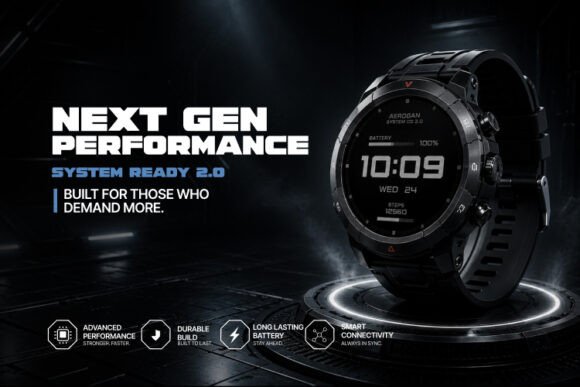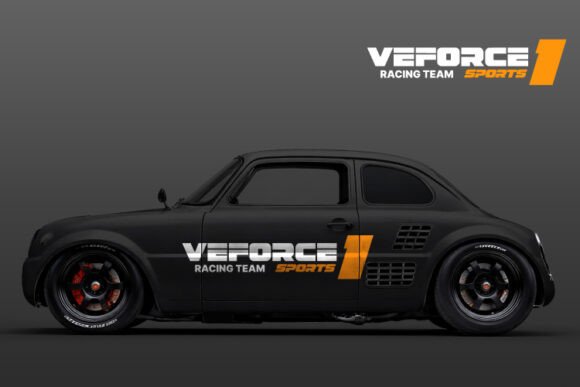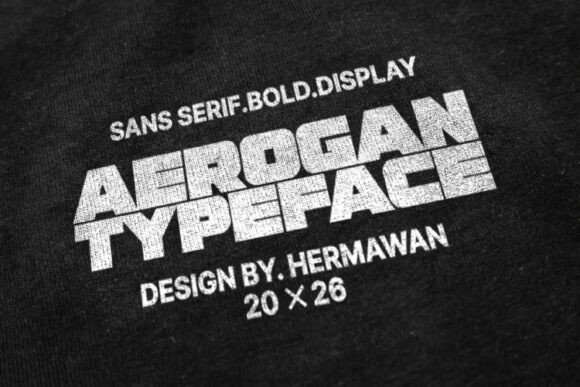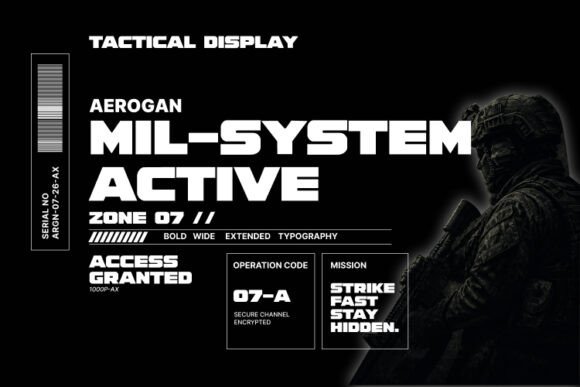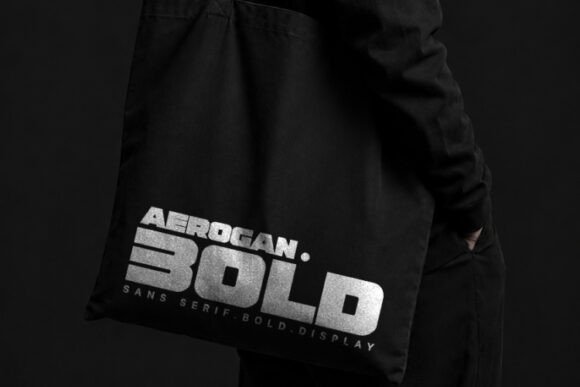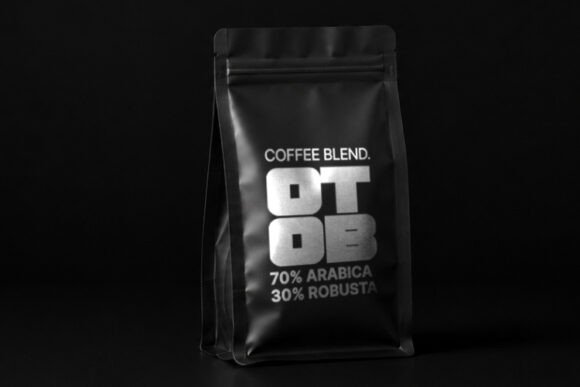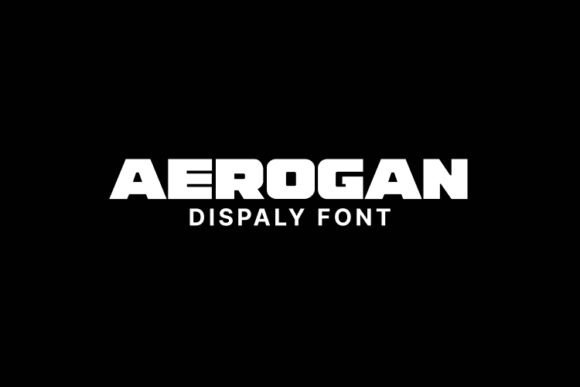
Aerogan Font: Unleash the Power of Futuristic Design
In the world of typography, fonts play a crucial role in conveying the tone and personality of a brand. For designers and crafters looking to make a bold statement, AEROGAN font is the perfect choice. Inspired by futuristic motorsport aesthetics, industrial design, and modern racing culture, AEROGAN is a bold display typeface that exudes speed, power, and modernity.
AEROGAN font boasts strong geometric shapes, sharp cuts, and a powerful visual weight that makes it perfect for high-impact designs. Its aggressive yet clean character style delivers a commanding presence across both digital and print designs. The font’s sleek and modern design makes it an ideal choice for logos, esports branding, automotive graphics, posters, apparel, packaging, and headlines.
- Bold and Powerful: AEROGAN font features a bold and powerful design that grabs attention and makes a lasting impression.
- Geometric Shapes: The font’s strong geometric shapes give it a futuristic and modern look that’s perfect for designs that require a cutting-edge feel.
- Sharp Cuts: The sharp cuts and clean lines of AEROGAN font add to its aggressive yet refined character style.
- Versatile: AEROGAN font is versatile and can be used across various design projects, from logos and branding to posters and packaging.
Use Cases
AEROGAN font is perfect for designers and crafters who want to create bold and impactful designs. Here are some use cases where AEROGAN font shines:
- Logos and Branding: AEROGAN font is ideal for creating logos and branding materials that require a bold and modern look.
- Esports Branding: The font’s futuristic design makes it a great choice for esports branding and gaming-related projects.
- Automotive Graphics: AEROGAN font’s inspiration from motorsport aesthetics makes it a natural fit for automotive graphics and designs.
- Posters and Headlines: The font’s bold and powerful design makes it perfect for creating eye-catching posters and headlines.
- Apparel and Packaging: AEROGAN font can add a modern and edgy touch to apparel and packaging designs.
Why Choose AEROGAN Font?
- Unique Design: AEROGAN font’s unique design sets it apart from other fonts, making it a great choice for designers who want to create something distinctive.
- High-Impact: The font’s bold and powerful design makes it perfect for high-impact designs that require attention-grabbing typography.
- Versatile: AEROGAN font is versatile and can be used across various design projects, making it a great addition to any designer’s toolkit.
In conclusion, AEROGAN font is a bold and powerful display typeface that’s perfect for designers and crafters who want to create futuristic and modern designs. With its strong geometric shapes, sharp cuts, and powerful visual weight, AEROGAN font delivers a fast, modern, and commanding presence across both digital and print designs. Whether you’re working on logos, esports branding, automotive graphics, posters, apparel, packaging, or headlines, AEROGAN font is an excellent choice.